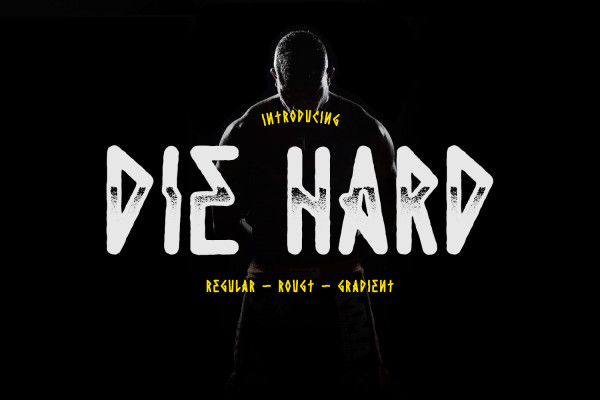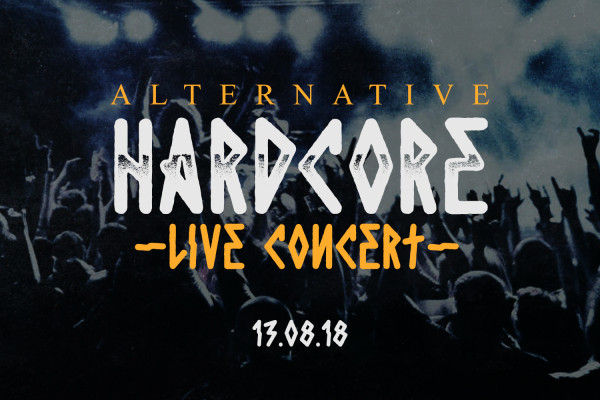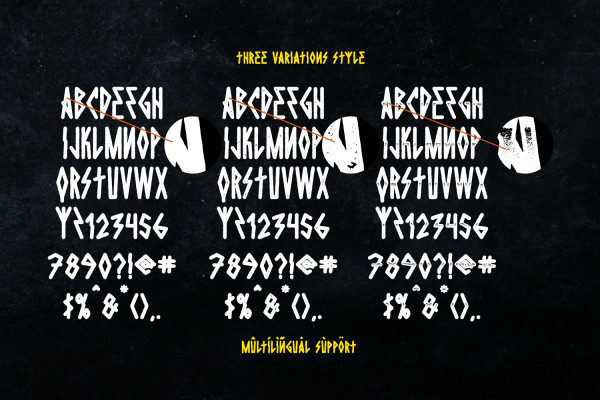
Die Hard Display Font
Die Hard Display Font is a cool, edgy display font that will give your designs a distinct and different style! This font comes in different styles, so you can mix and match them for unique looking, tough typography.